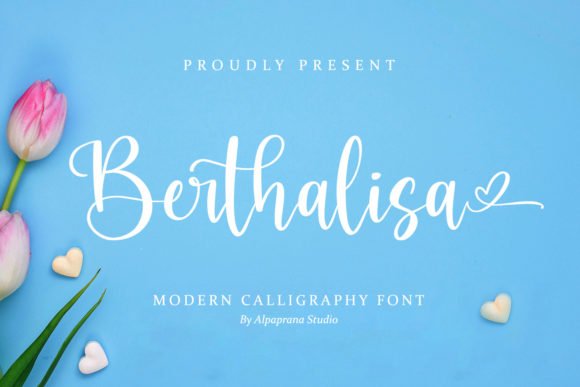
Unveiling the Whimsy of Berthalisa Font
As I sat with a blank page in front of me, trying to decide on the perfect typography for my upcoming wedding invitation, I stumbled upon the perfect solution: a delicate handwritten font that captured the essence of romance and elegance. Berthalisa Font, with its charming and intricate characters, immediately caught my eye, and I knew it was the perfect fit for the project.
Berthalisa Font is more than just a beautiful font – it’s a versatile tool for designers who want to add a touch of whimsy and charm to their projects. With its PUA encoding, accessing all the glyphs and swashes is a breeze, making it an invaluable asset for any designer looking to elevate their typography game.
- Unique Characteristics: Elegant script, cursive font with a vintage touch, ideal for creative projects and invitations
Berthalisa Font Review
Overall, I think Berthalisa Font is an interesting and unique choice for designers looking to add some personality to their projects. ✨ The font’s eclectic mix of script and serif elements makes it stand out in a crowded font market. I particularly appreciate the attention to detail in the letterforms, which add a touch of sophistication to the overall design.
One of the strengths of Berthalisa Font is its versatility. ✨ It can be used for a wide range of applications, from wedding invitations to restaurant menus, and its unique style is sure to grab attention. Additionally, the font comes in a variety of weights and styles, making it easy to find the perfect combination for your project.
However, there are a few limitations to consider. ⚠️ For one, the font may be difficult to read in smaller sizes or in situations where the text is densely packed. Additionally, some of the letterforms may be a bit too ornate for certain applications, which could make the text feel cluttered or overwhelming.
- Works well for projects that require a unique and attention-grabbing font.
- Offers a range of weights and styles to suit different design needs.
- Attention to detail in letterforms adds sophistication to the design.
- May be difficult to read in smaller sizes or densely packed text.
- Some letterforms may be too ornate for certain applications.
Overall, I would recommend Berthalisa Font to designers who are looking for a unique and stylish font to add some personality to their projects. With careful consideration of the font’s limitations, it can be a great choice for a wide range of applications.
Berthalisa is ideal for:
– Creative projects, such as posters, flyers, and brochures
– Business presentations, such as slides and reports
– Digital documents, such as resumes and ebooks
– Social media graphics and ads